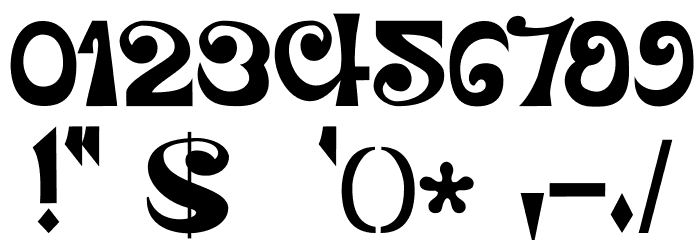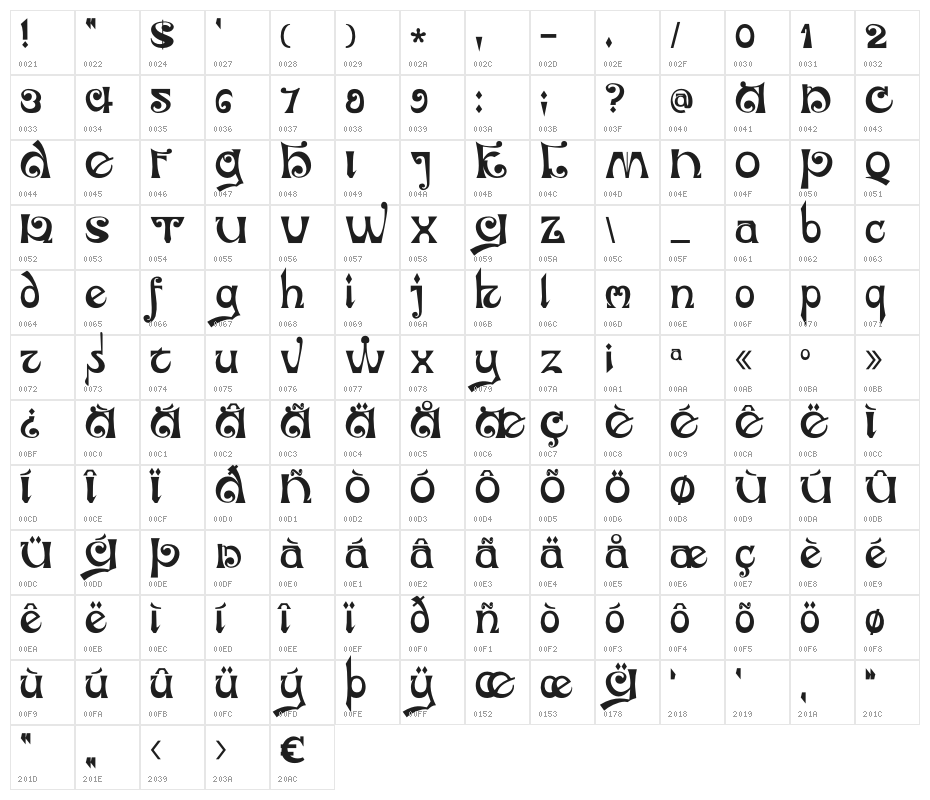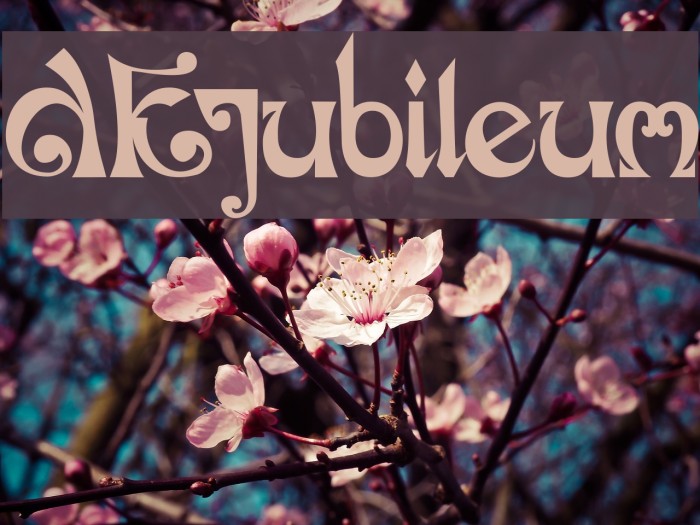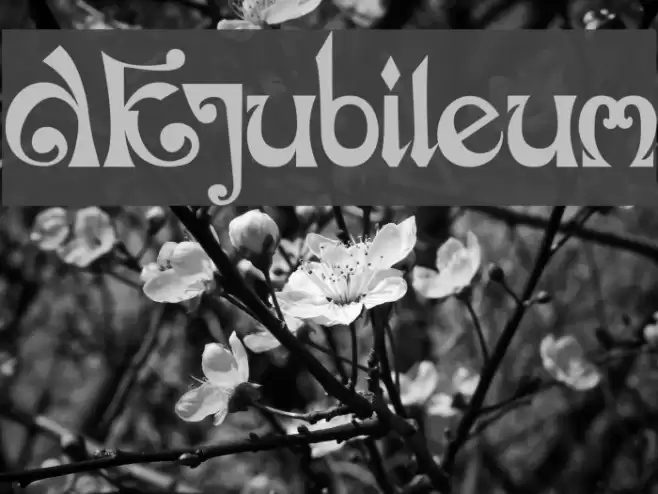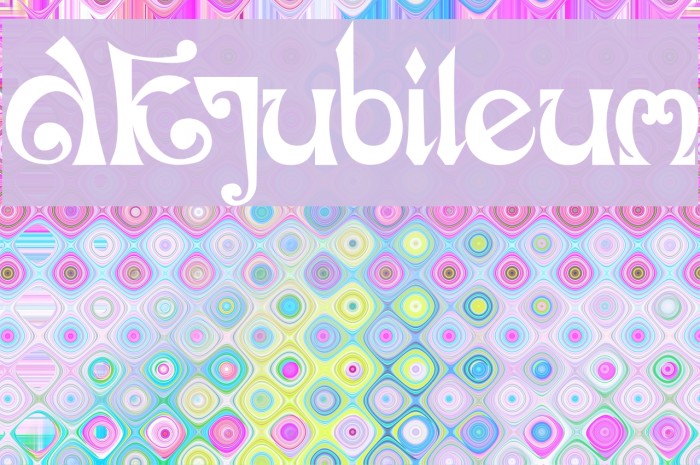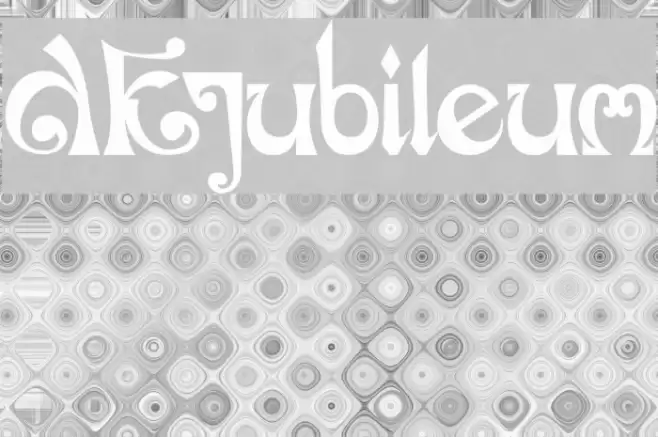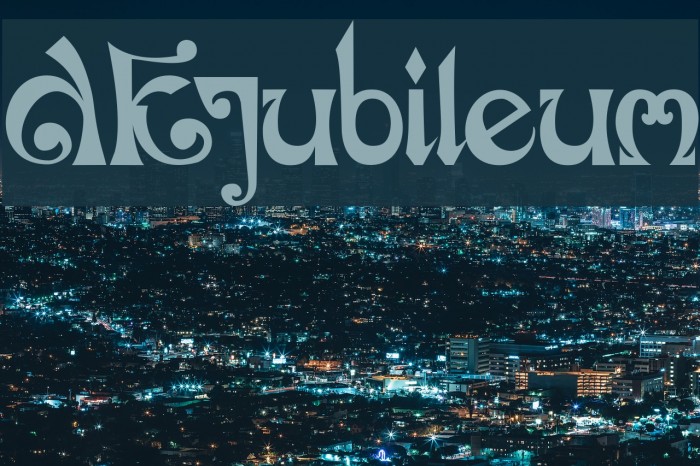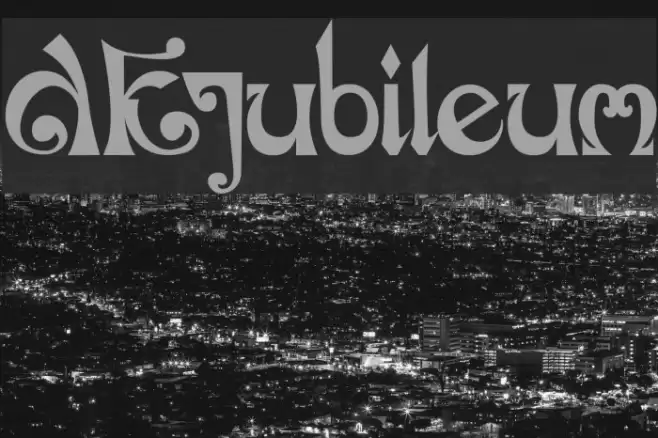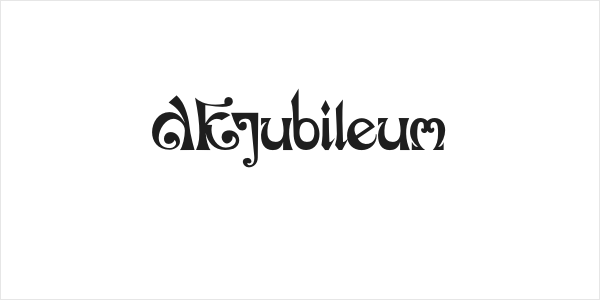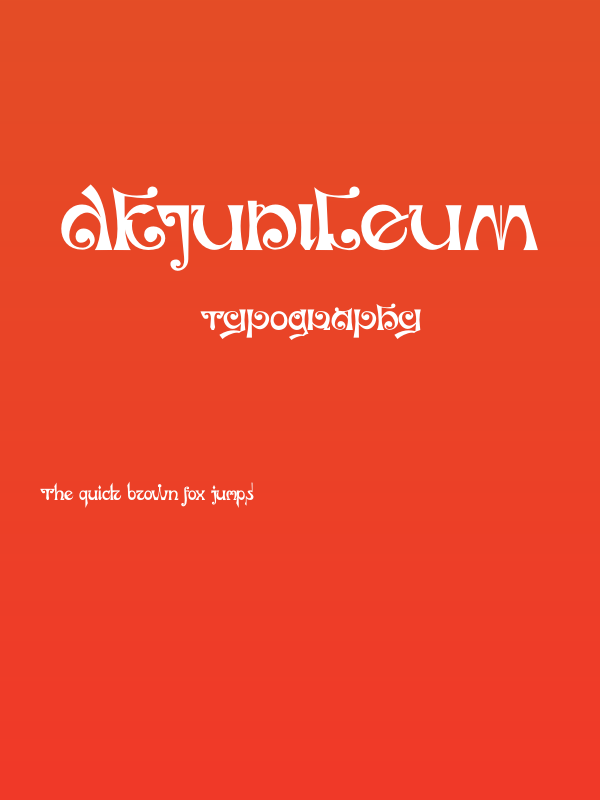
DKJubileum Font
DKJubileum Description
This font features a unique and artistic design with a playful and whimsical flair. The characters are bold and have a distinct, decorative style that incorporates both sharp angles and smooth curves. The uppercase and lowercase letters maintain a consistent theme, with exaggerated serifs and intricate details that add to its ornamental appearance. The numbers and special characters follow the same elaborate design, making the font suitable for creative and eye-catching projects. The overall aesthetic is reminiscent of a vintage or retro style, with a modern twist that makes it stand out.
| Overall Style | Vintage, Decorative |
| Proposed Projects | Ideal for posters, branding, logos, and any project requiring a standout, artistic typeface. |